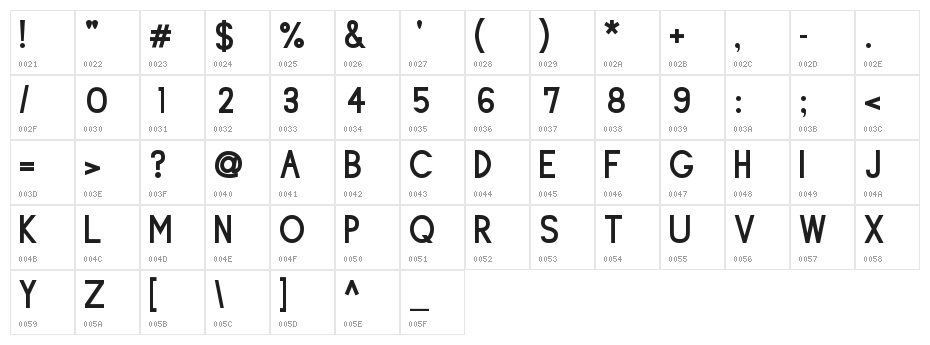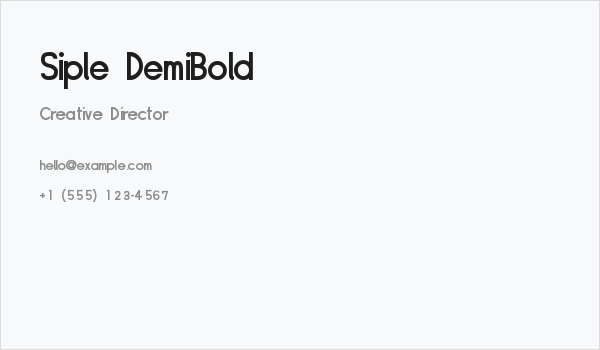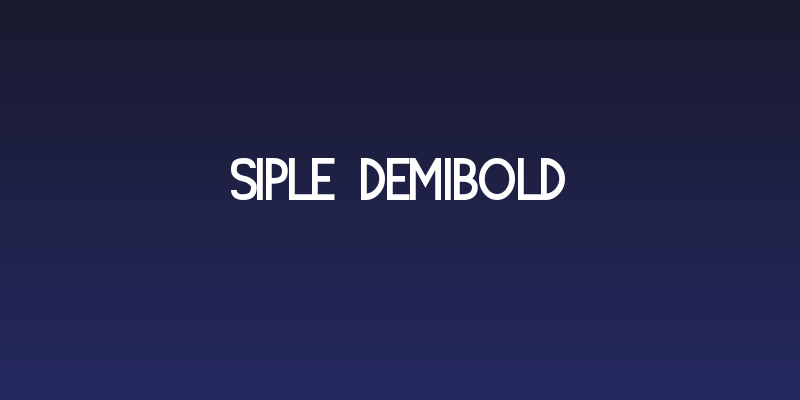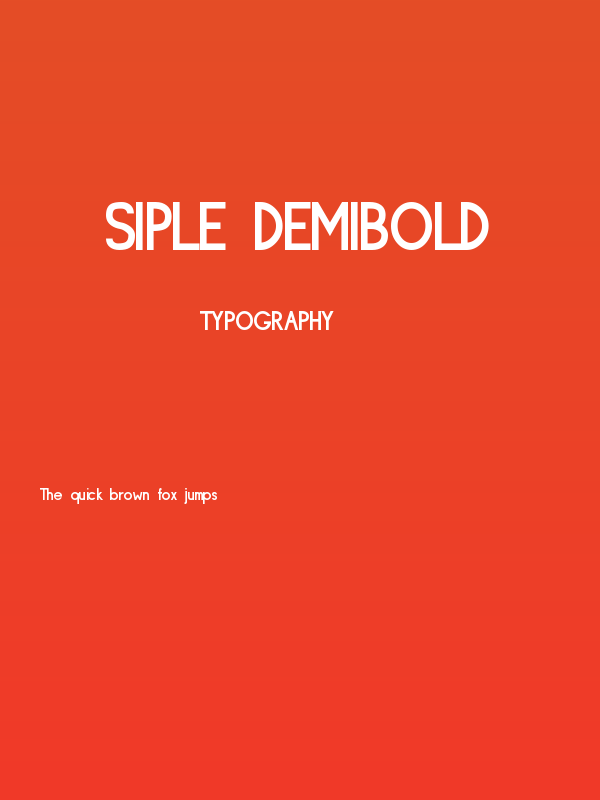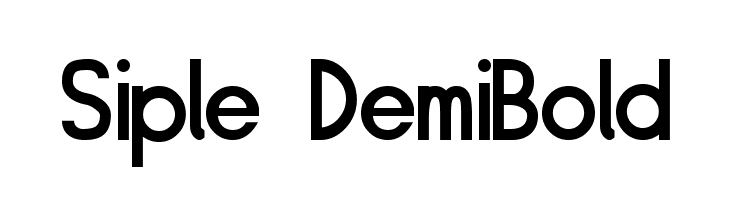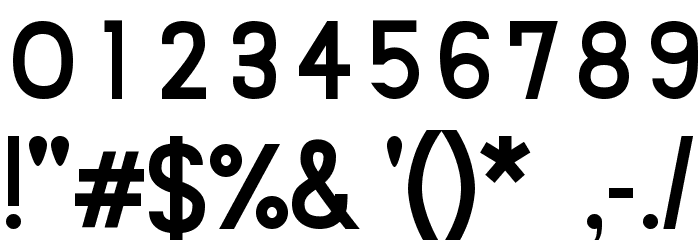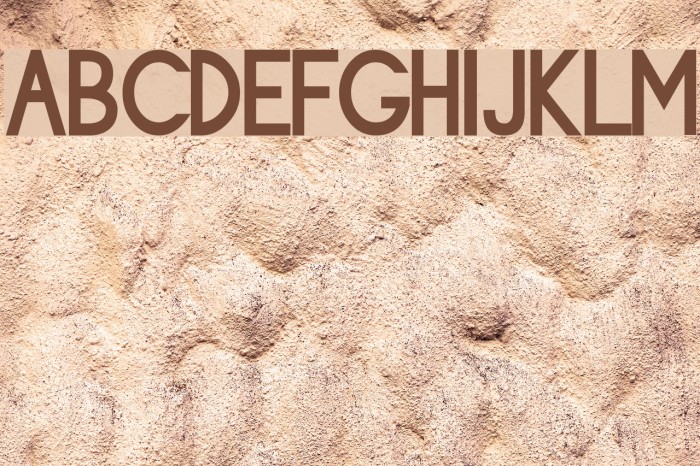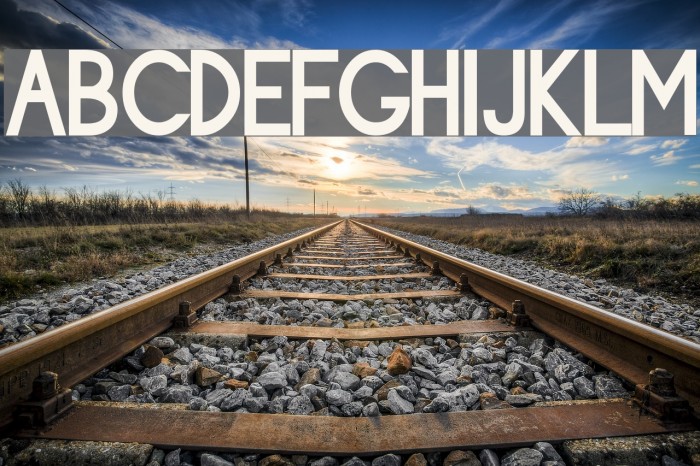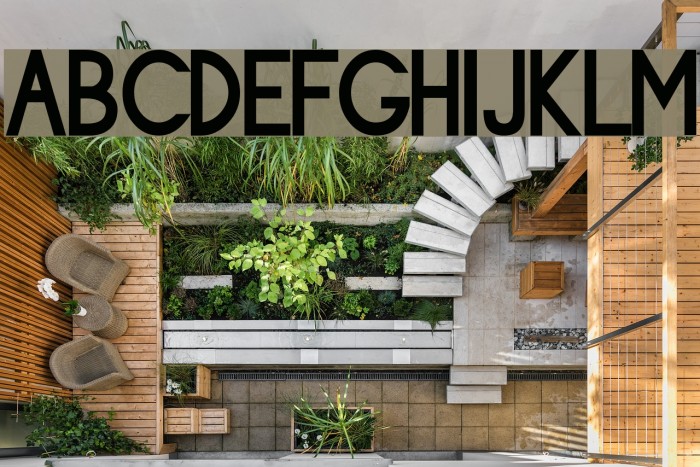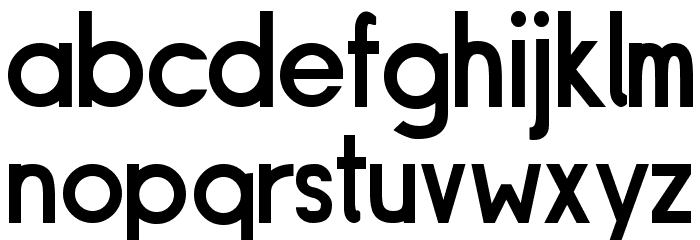
Siple DemiBold Font
Siple DemiBold Description
This font features a bold and clean design, characterized by its geometric and uniform letterforms. The uppercase and lowercase letters are well-balanced, with consistent stroke widths that provide a modern and professional appearance. The numerals are clear and easily distinguishable, making them suitable for various applications. Special characters are included, maintaining the font's cohesive style. The overall design is straightforward, with a focus on readability and versatility, making it ideal for both digital and print media.
| Use Case | Headlines, Logos, Branding |
| Proposed Projects | Ideal for branding, advertising, headlines, and digital media projects. |